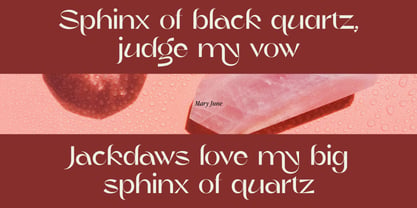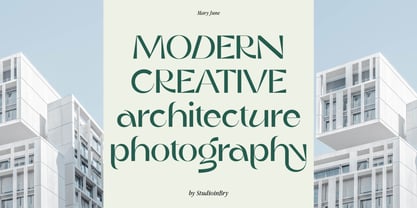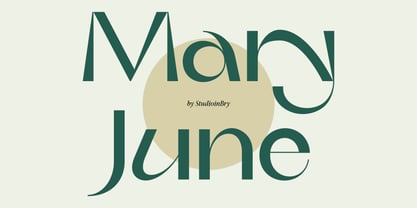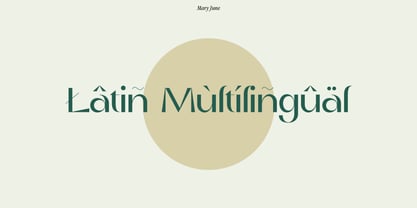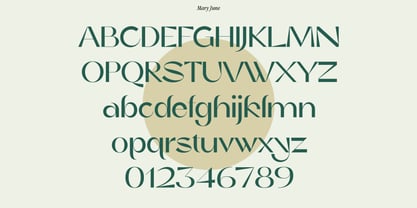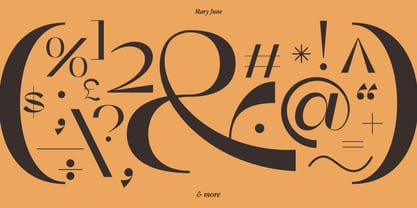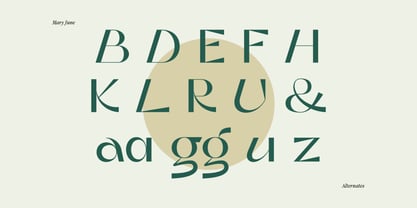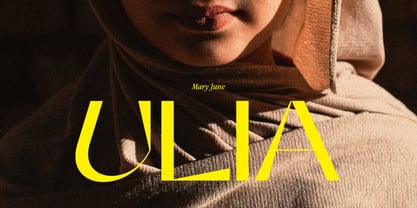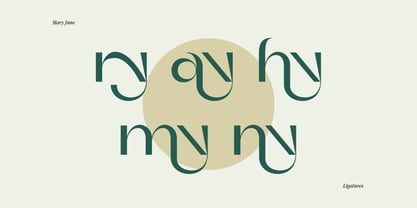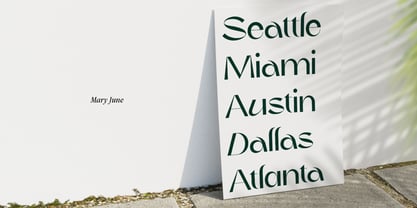
Mary June
by Bryantamanh
The Mary June Font Family was designed by Bryantama Nur Hidayat Suyoto and published by Bryantamanh. Mary June contains 1 styles. More about this family
Introducing Mary June sans serif, a high-contrast, clean, and elegant modern font. Perfect for branding, social media, posters, packaging, and more, it features UPPERCASE, lowercase, numbers, and punctuation. With stylistic alternates and ligatures, as well as Latin multilingual support, this font elevates your designs with its sophisticated display style defined by sleek lines and refined curves. Crafted for high-end branding, editorial layouts, and luxury packaging, it delivers an effortless sense of class and exclusivity.
Designers: Bryantama Nur Hidayat Suyoto
Foundry: Bryantamanh
Bryantamanh (StudioinBry) is a talented Digital Visual Artist based in Indonesia, specializing in digital imaging, visual art, and typography. With a passion for designing and editing diverse images, Bryantamanh integrates typography into his work, enhancing visual storytelling. Recently, he has expanded his expertise to include font creation, enabling brands to establish strong identities through innovative, functional, and meaningful designs.